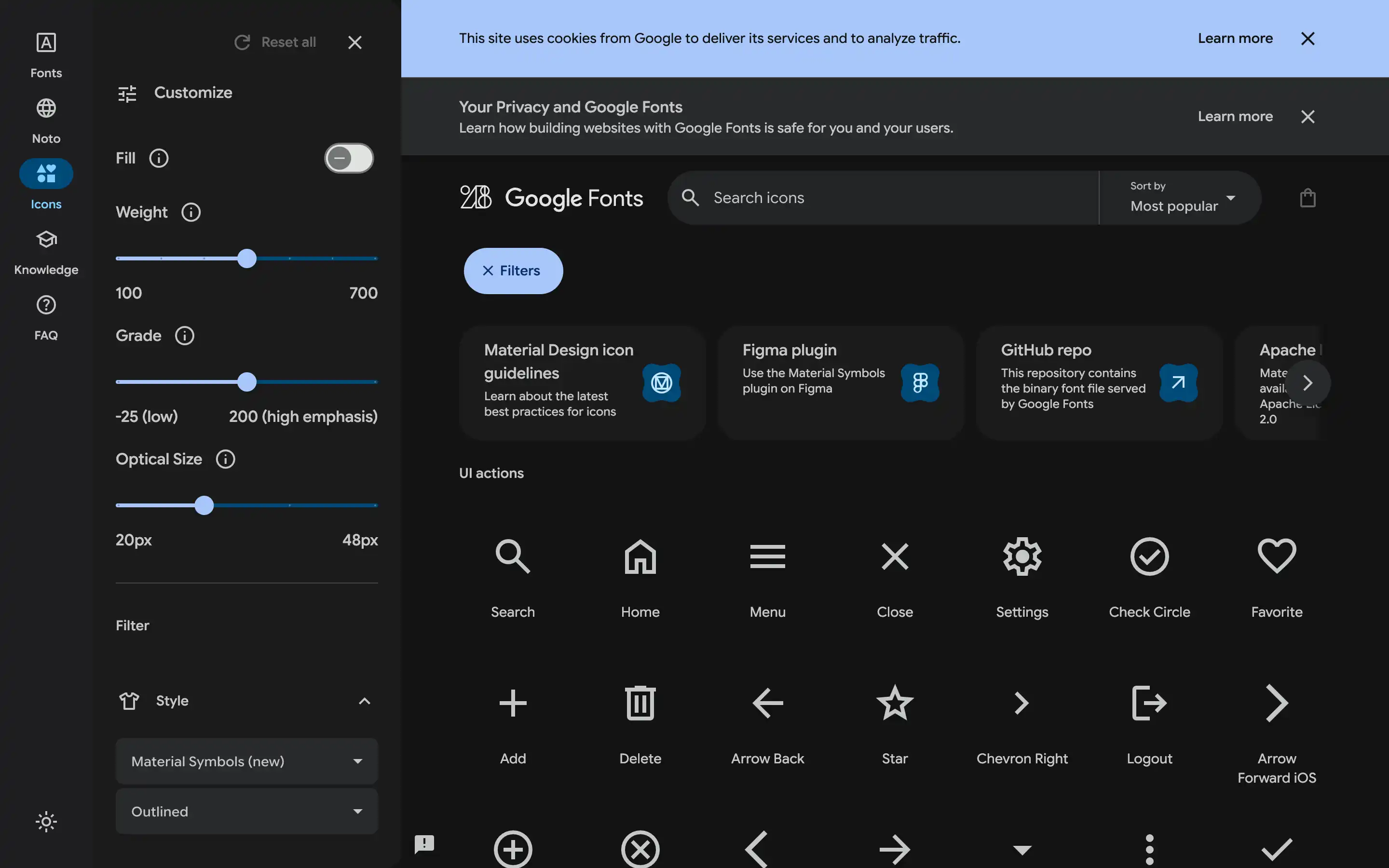
Google Fonts icons customization interface screenshot
Material Symbols Icons is a comprehensive collection of open-source icons provided by Google, designed to integrate seamlessly into various digital projects. This resource includes the Material Symbols set, offering over 2,500 icons with customizable attributes such as fill, weight, grade, and optical size, allowing for tailored design implementations.